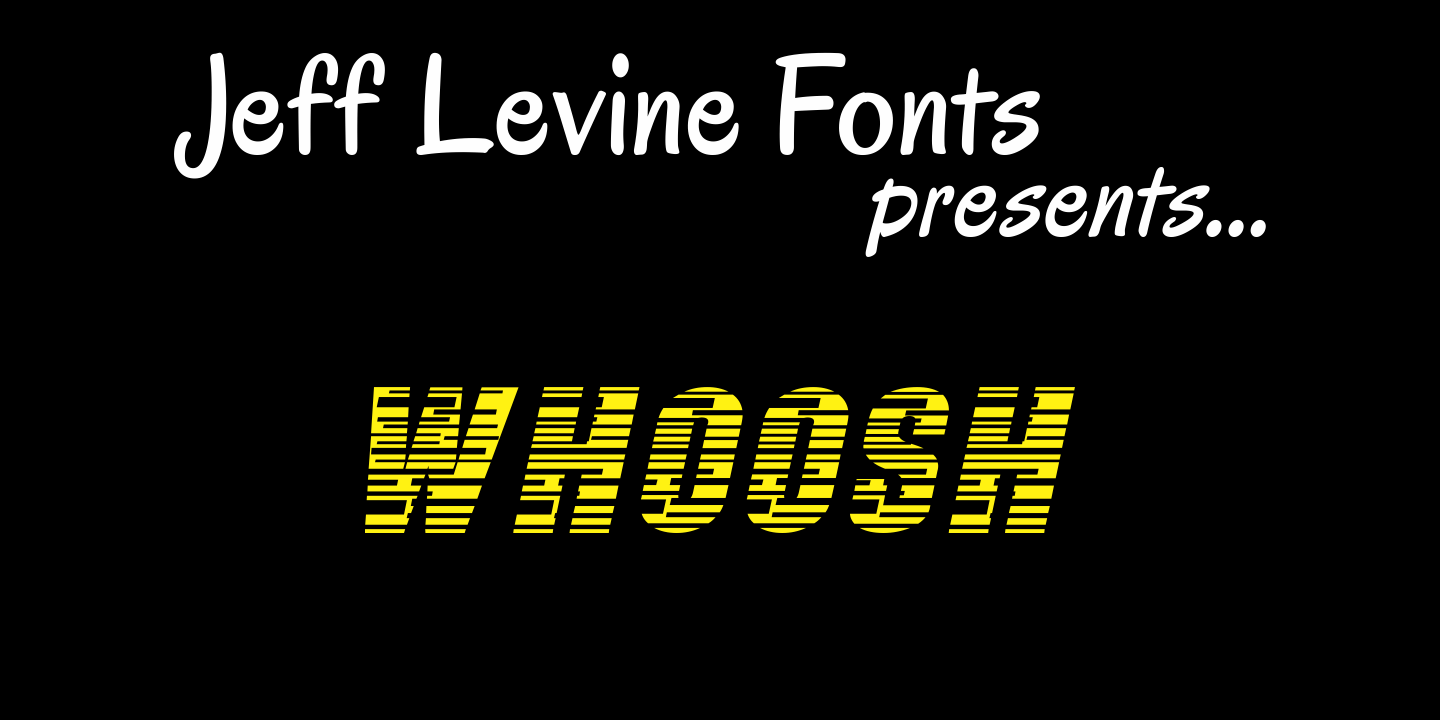
Whoosh
Whoosh JNL is a basic character set font with no foreign or extra characters.
It simulates rapid movement and is perfect for displaying titles that convey rush hour, time constraints or speed.